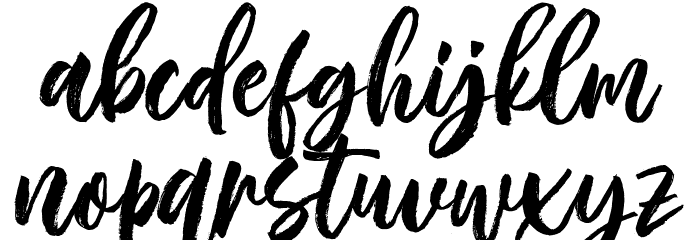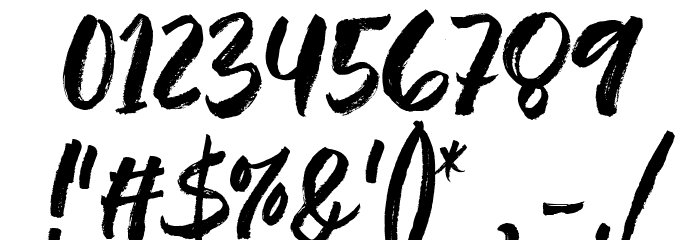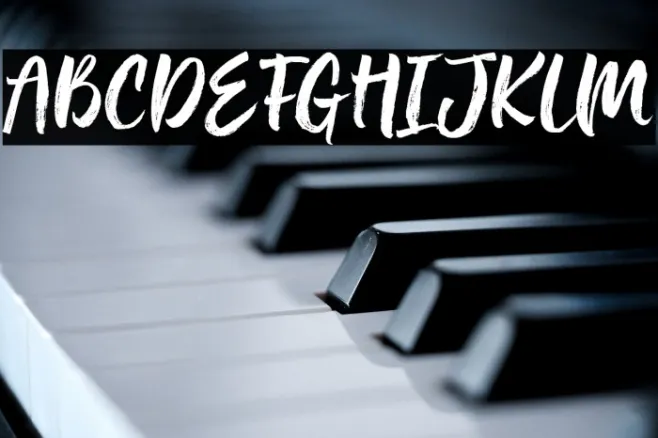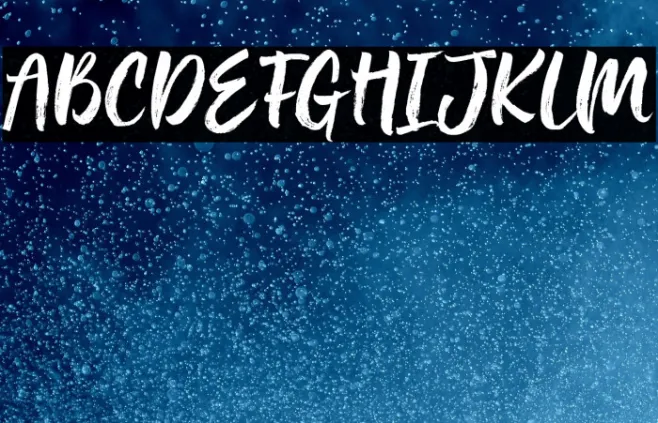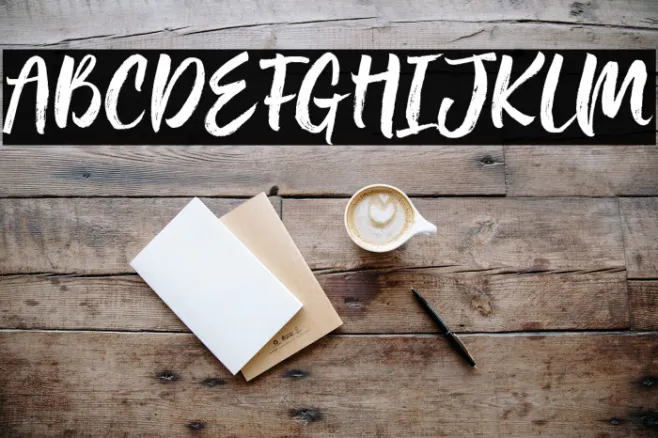
Rough Rough Font
This font features a bold and expressive handwritten style, characterized by its brush-like strokes and dynamic flow. The letters have a natural, organic feel, with varying thicknesses that add a sense of movement and energy. The uppercase and lowercase letters maintain a consistent style, while the numbers and special characters integrate seamlessly with the overall design. The rough texture of the strokes gives it a raw, artistic appearance, making it ideal for projects that require a personal touch or a creative flair.
A bold, expressive handwritten font with brush-like strokes and dynamic flow.
- Proposed Projects: Ideal for branding, posters, invitations, and any project that requires a personal or artistic touch.